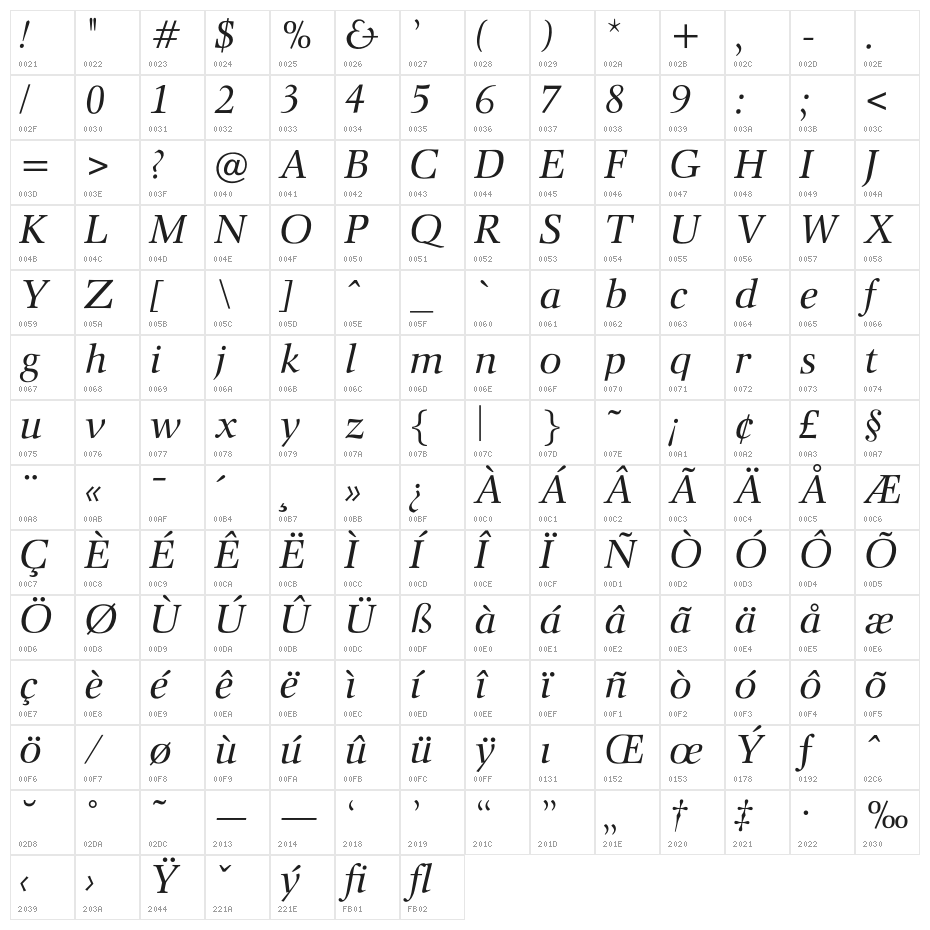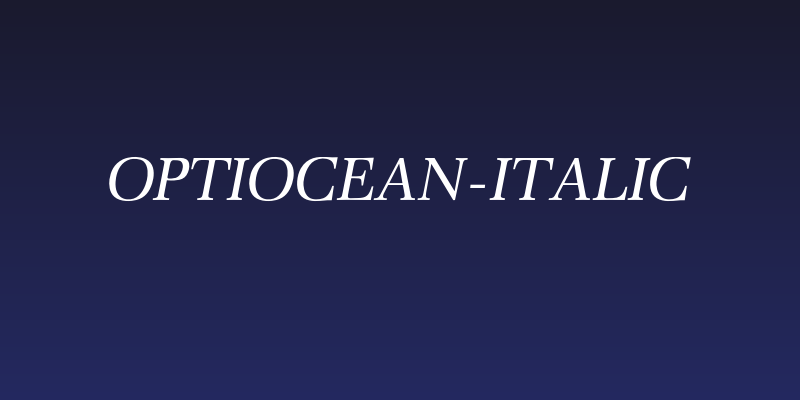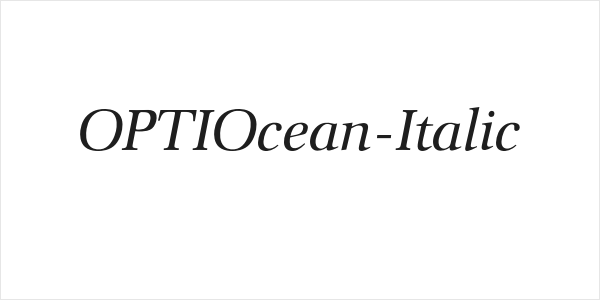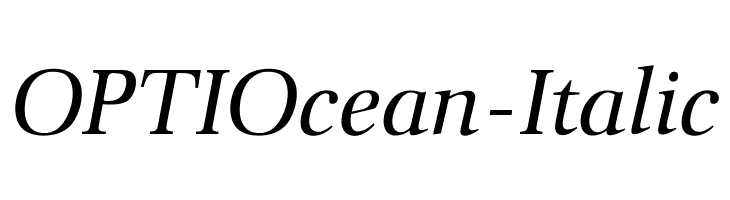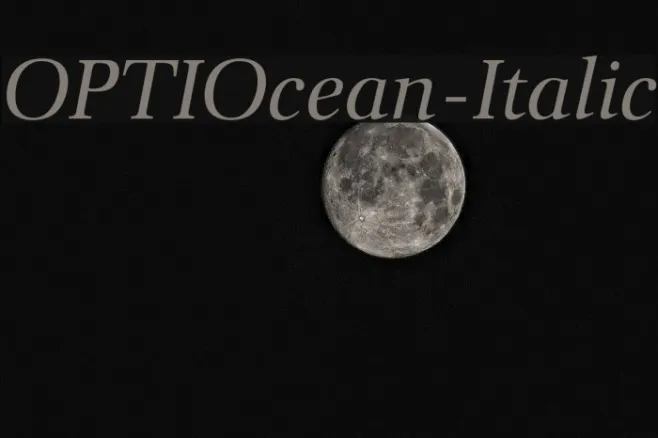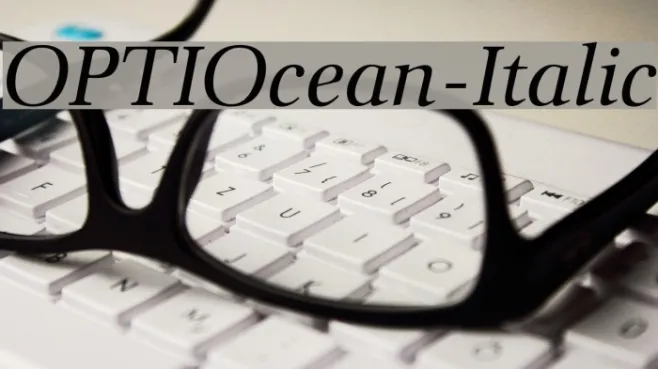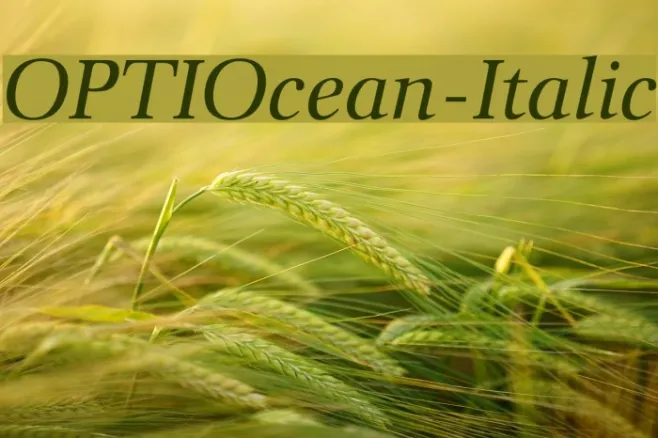
OPTIOcean-Italic Font
OPTIOcean-Italic Description
This elegant serif font features a classic italic style with smooth, flowing lines and a refined appearance. The characters are slightly slanted, adding a sense of movement and sophistication. The uppercase letters are tall and stately, while the lowercase letters maintain a consistent flow, enhancing readability. The numerals are well-proportioned, and the special characters are designed to complement the overall aesthetic. This font exudes a timeless charm, making it suitable for a variety of formal and creative applications.
| Proposed Projects | Ideal for use in formal invitations, elegant branding, editorial design, and high-end product packaging. |